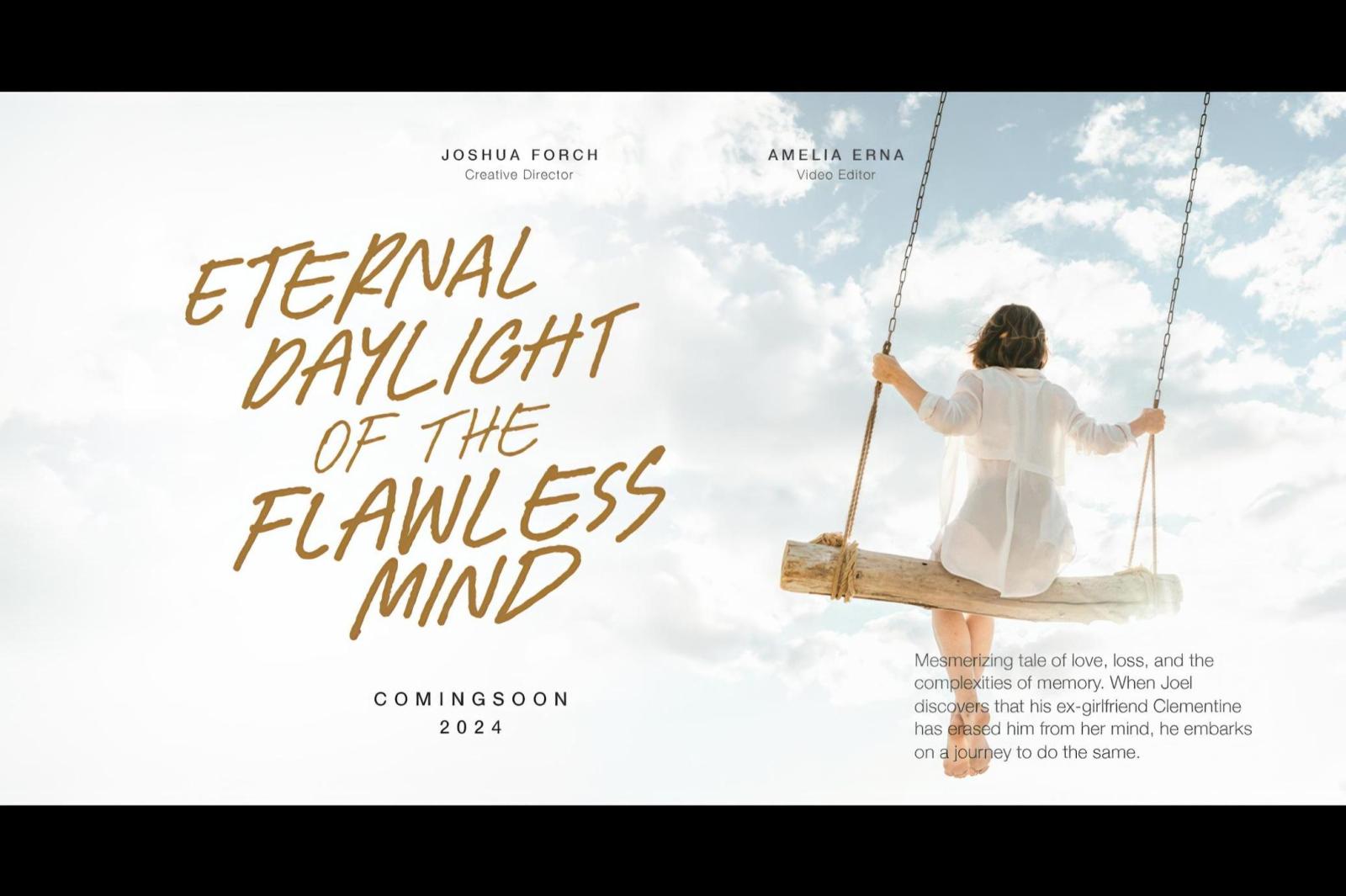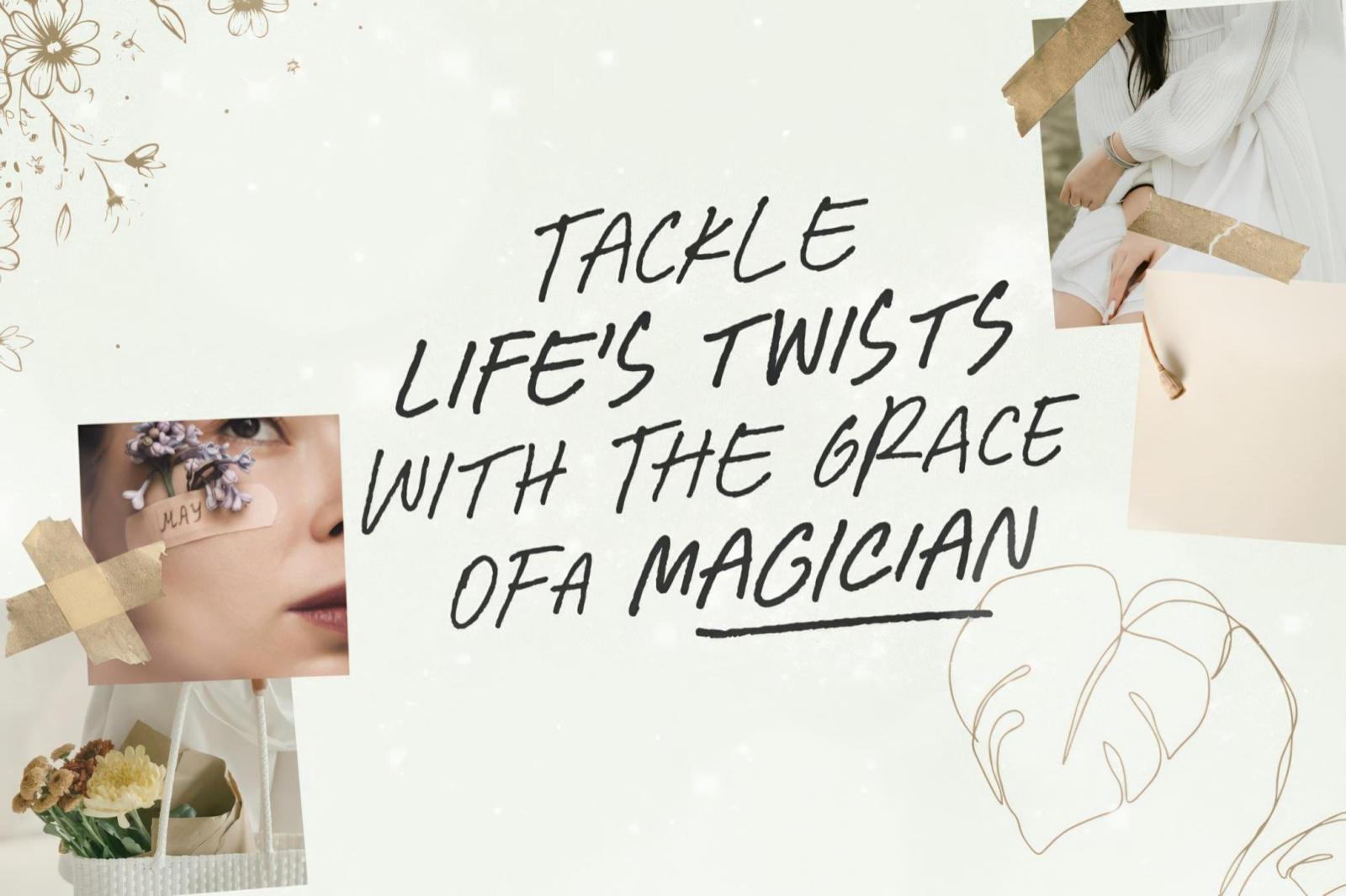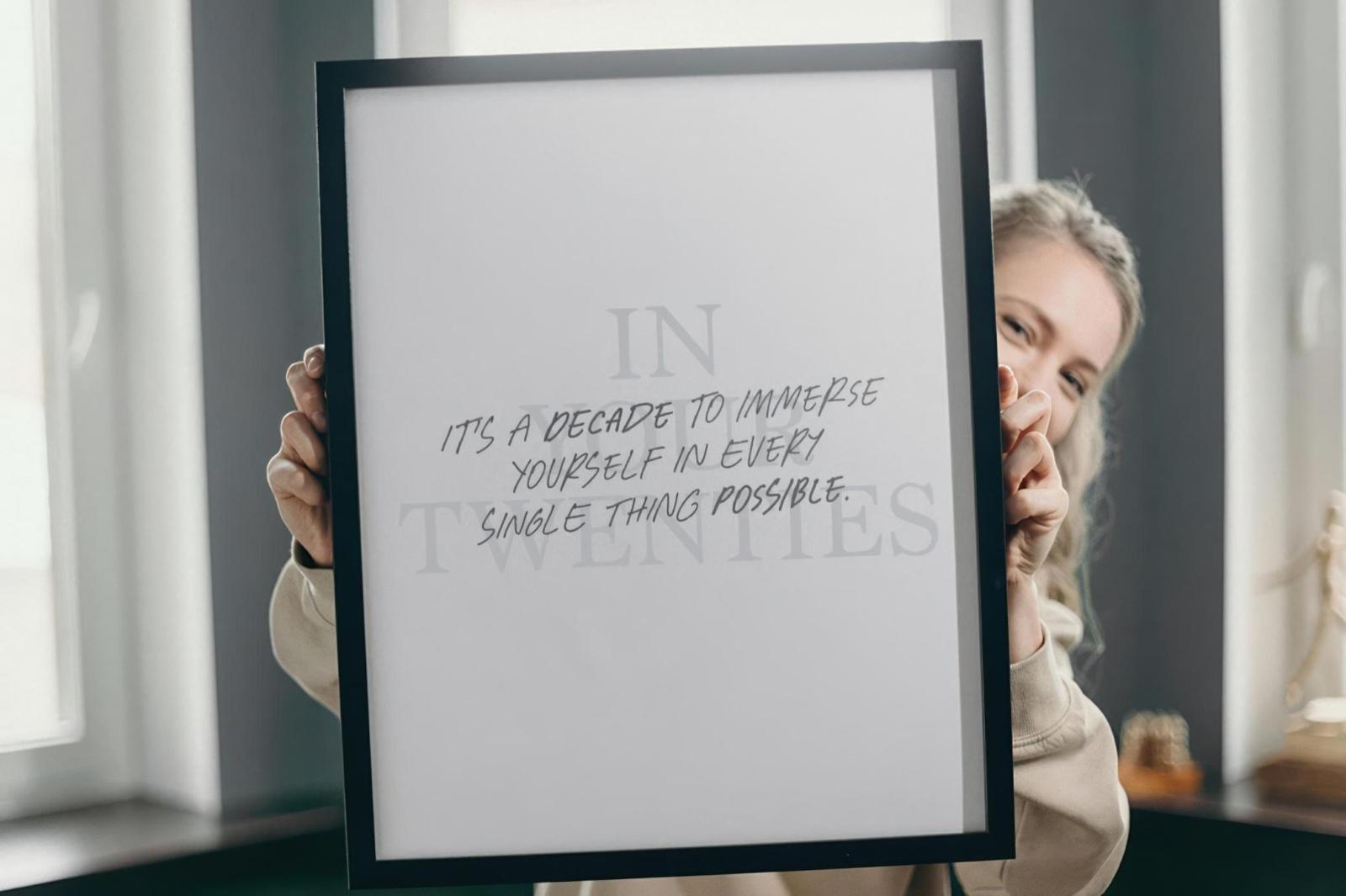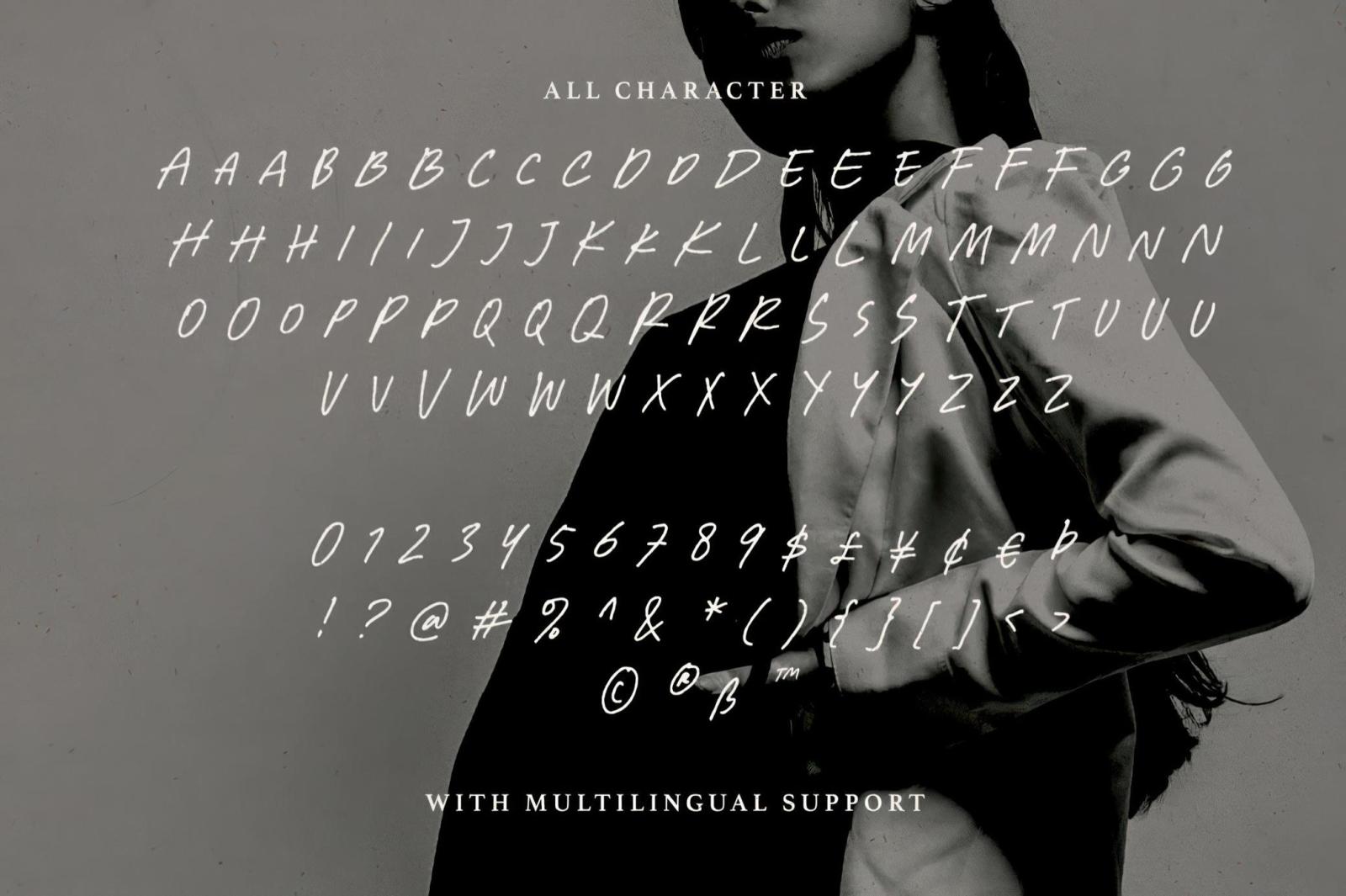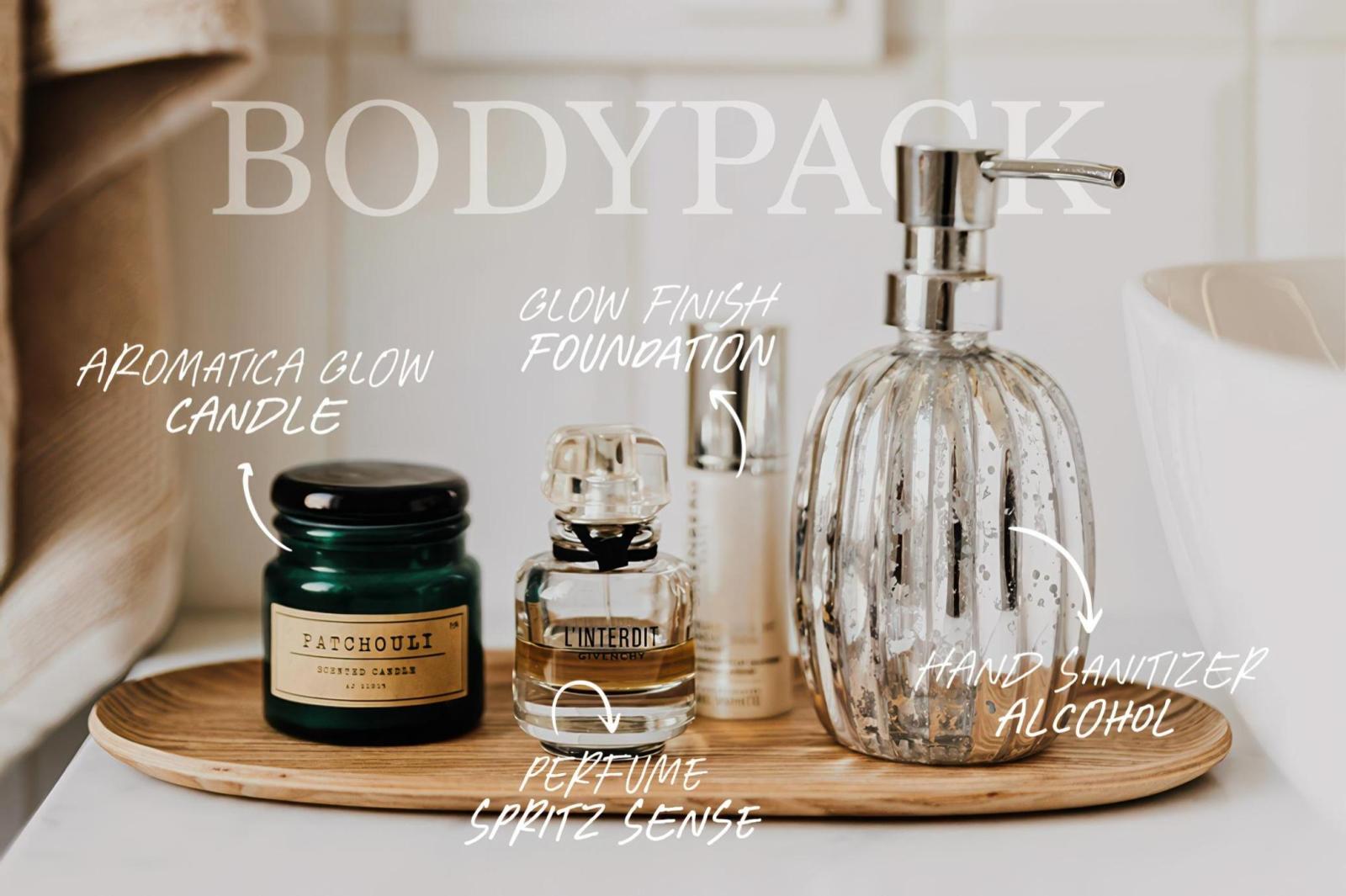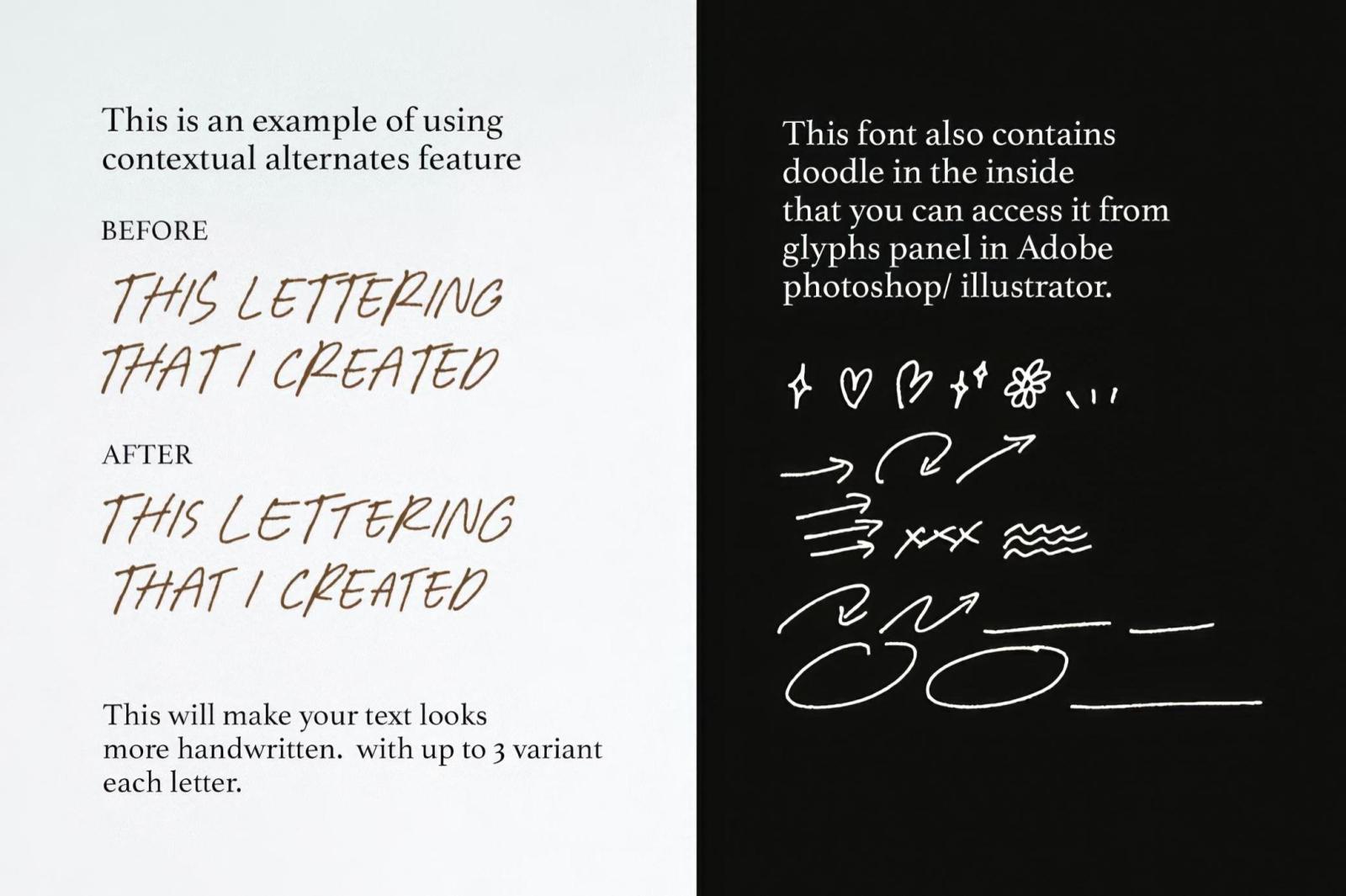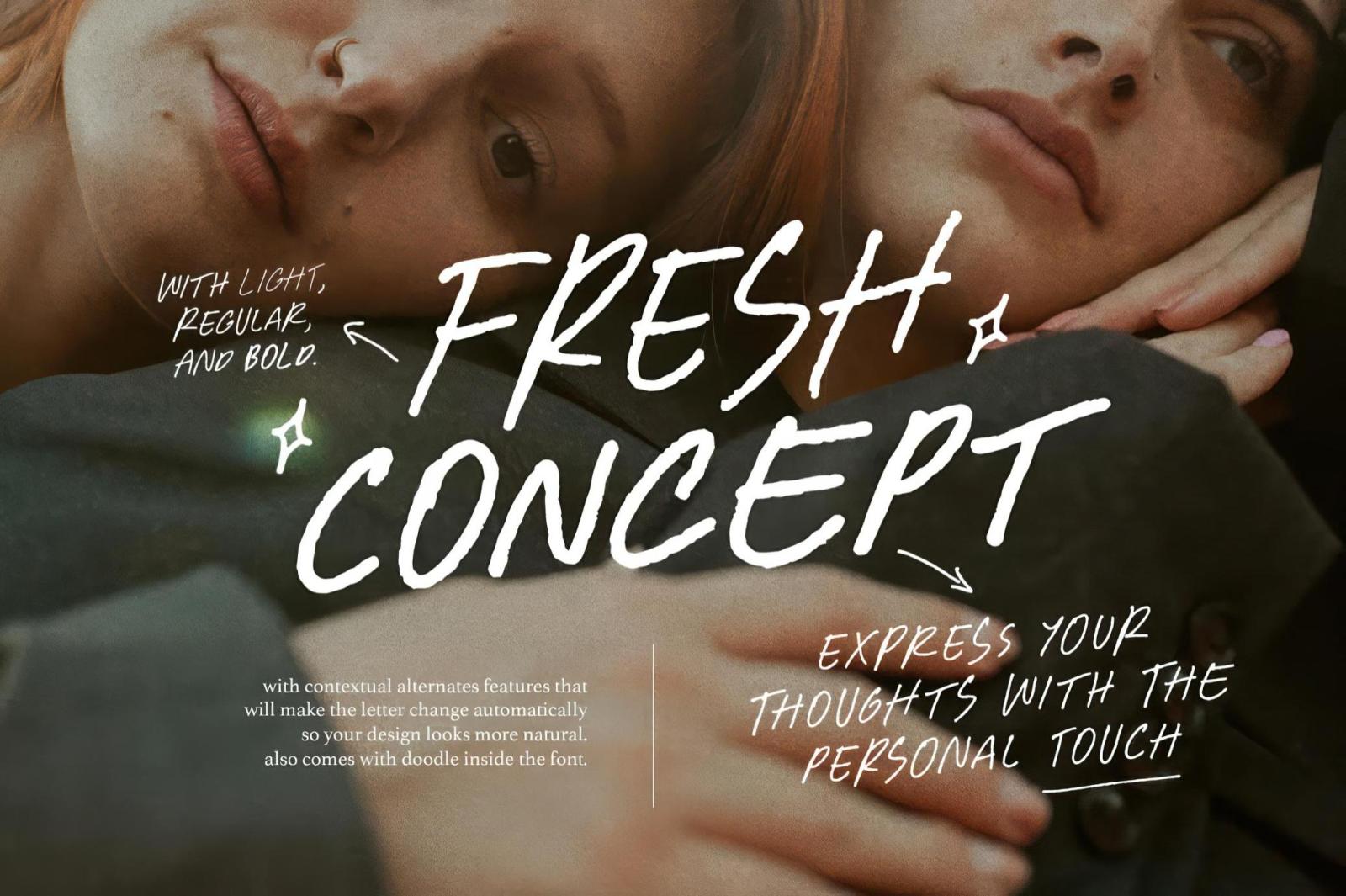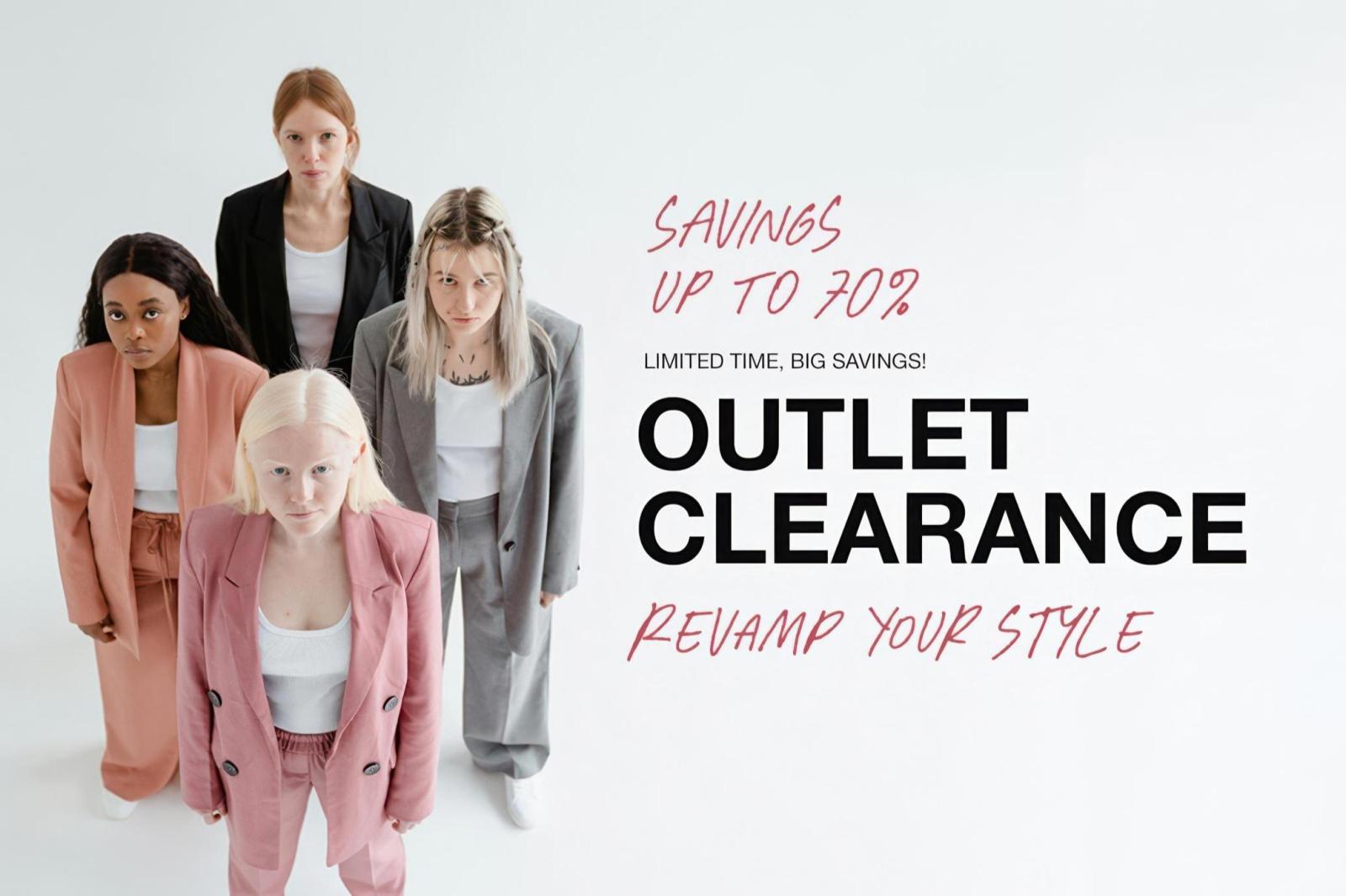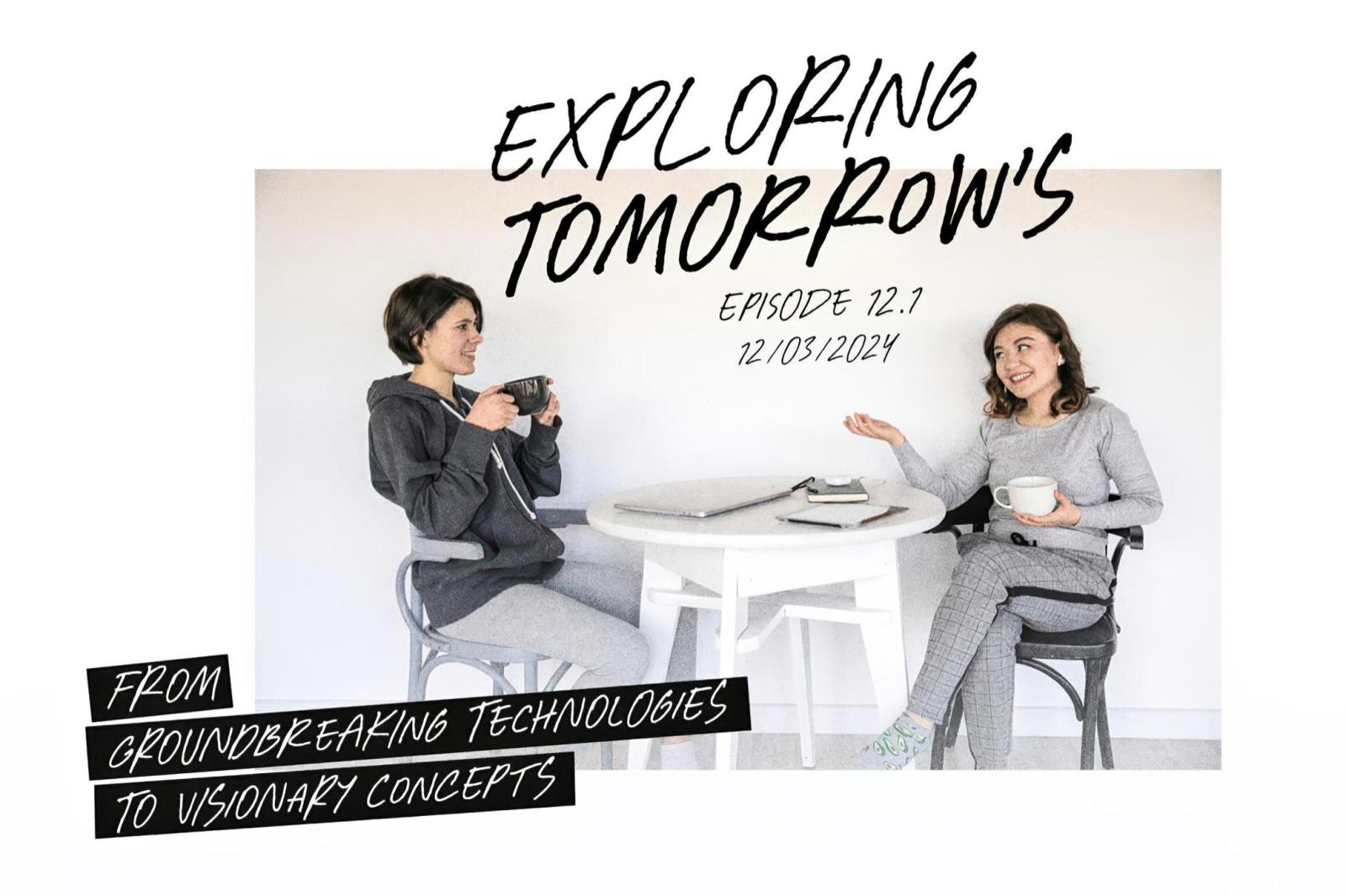
Fresh Concept — All-Caps Handwritten Font
Fresh Concept is not equal to everything you have ever used: it's an emotional handwritten all-caps font family suitable for projects that need to sit back a bit. It includes light, regular, and bold styles with a complete character set for each. With up to 3 variants of each letter, the font will automatically change when identical letters meet. This feature will work in the software that supports contextual alternate features such as Adobe Illustrator/ Photoshop. There are cute doodles inside the font that you can also access with Photoshop/ Illustrator's Glyphs Panel.